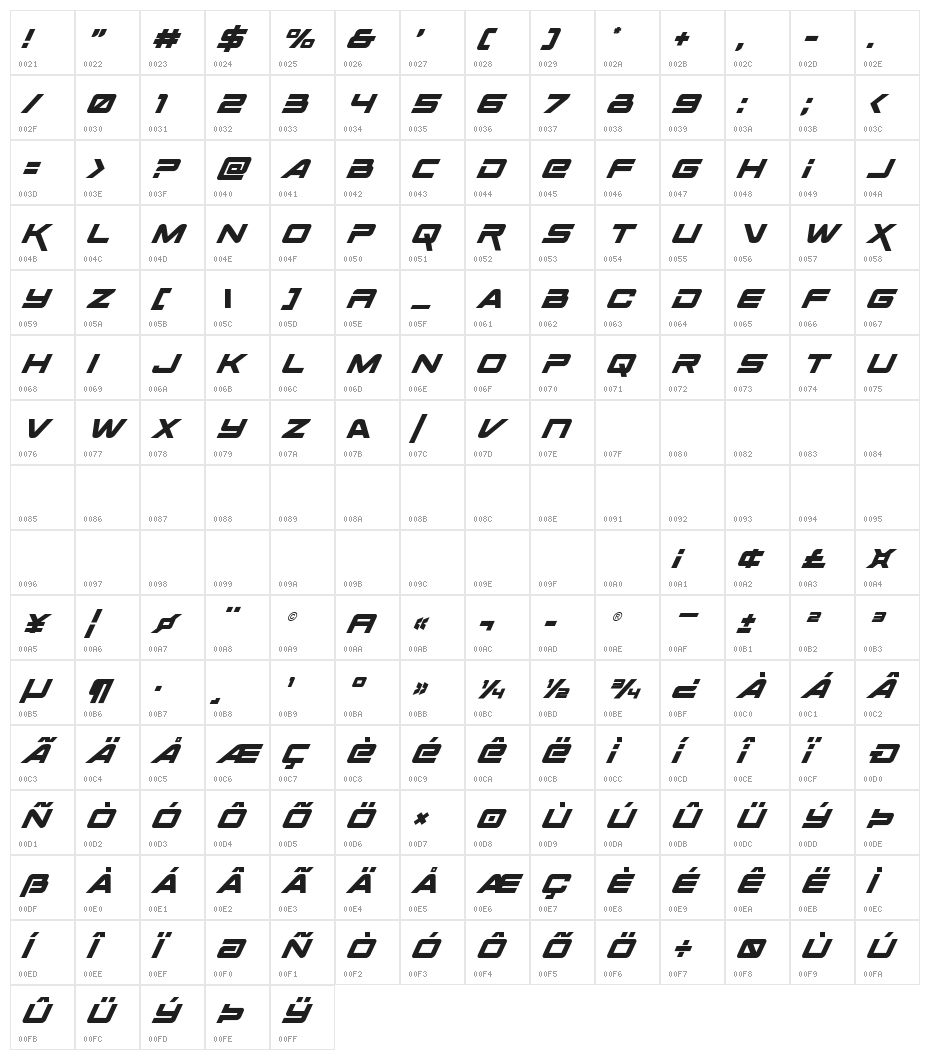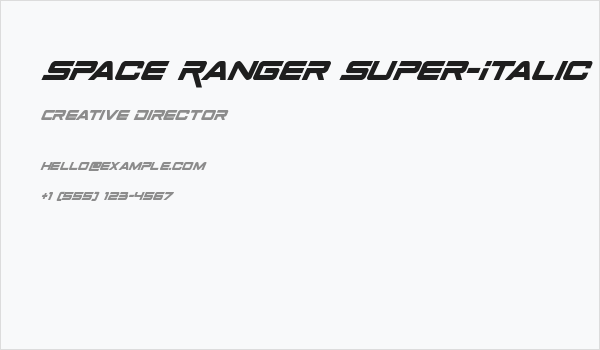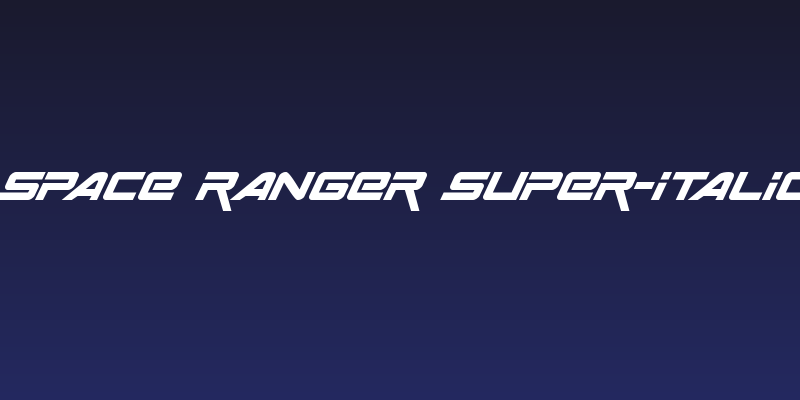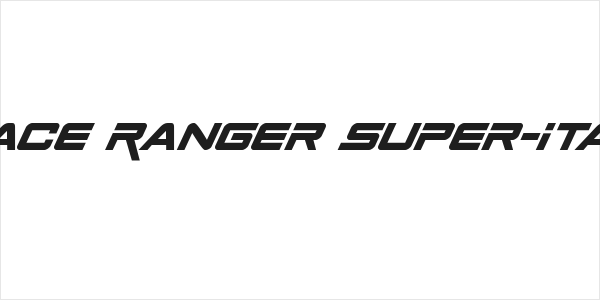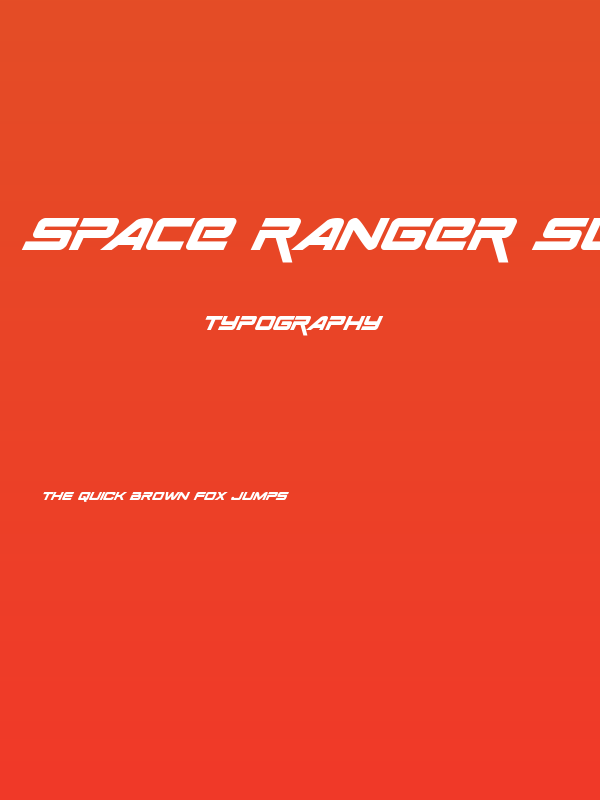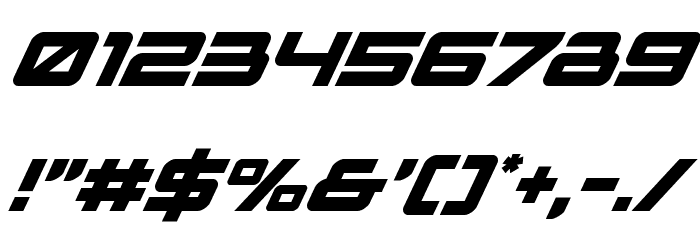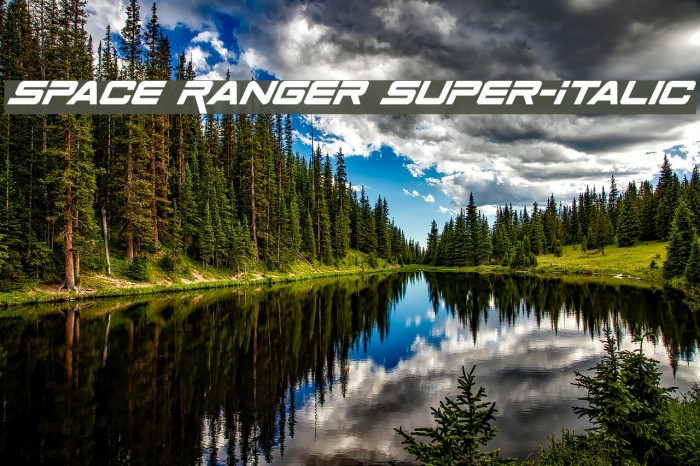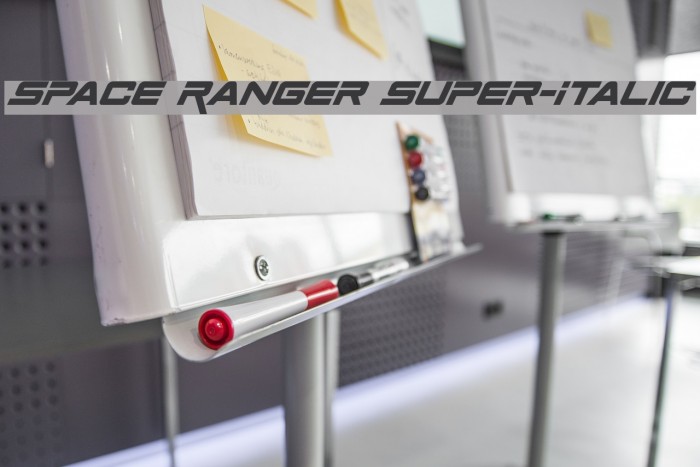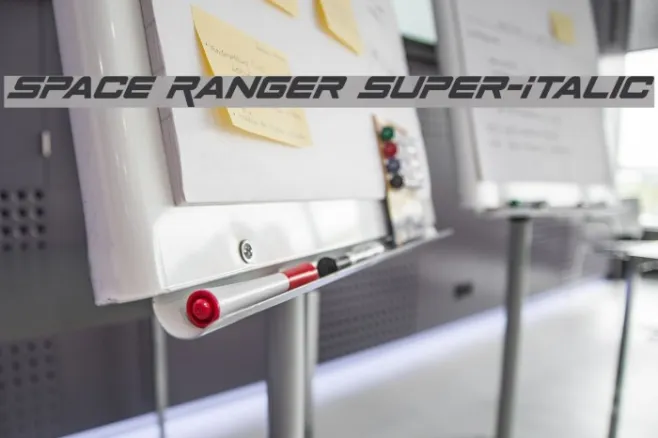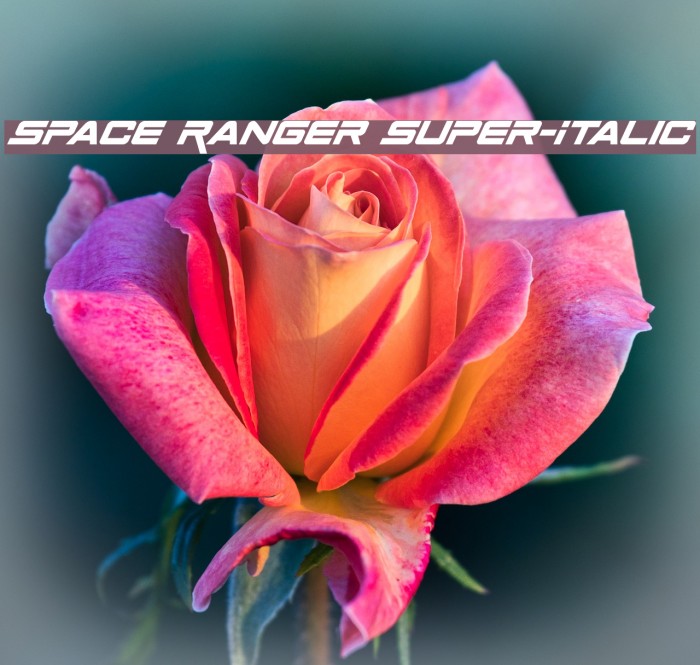
Space Ranger Super-Italic Font
Space Ranger Super-Italic Description
This font features a futuristic and dynamic design, characterized by its italicized and angular letterforms. The strokes are bold and consistent, giving it a strong presence. The characters are slightly condensed, enhancing the sleek and modern aesthetic. The uppercase and lowercase letters maintain a cohesive style, with sharp edges and a forward-leaning posture that suggests movement and speed. The numerals and special characters follow the same design principles, ensuring uniformity across all glyphs. This font is well-suited for projects that require a modern and energetic look.
| Proposed Projects | Ideal for sci-fi themed designs, technology branding, video game titles, and sports team logos. |